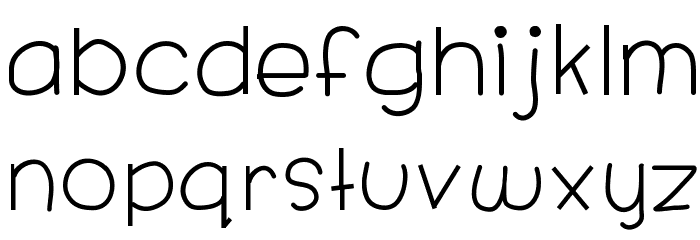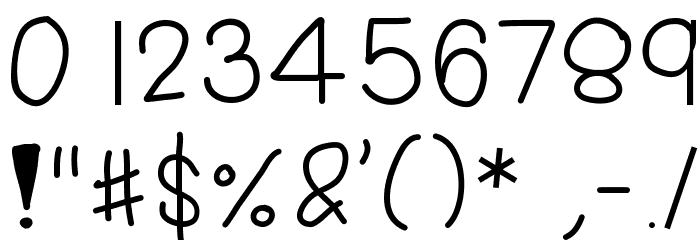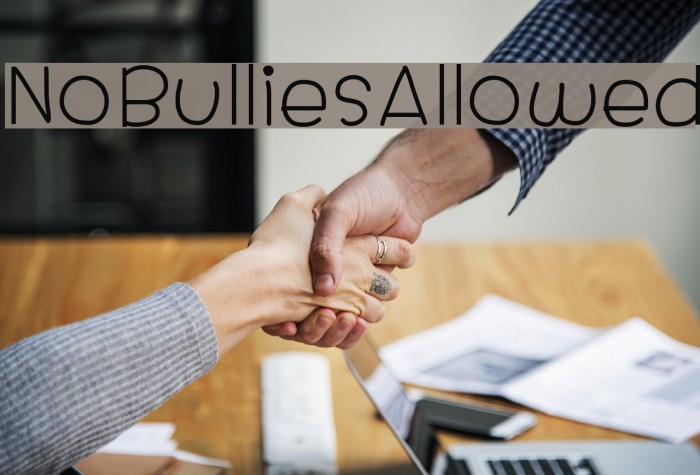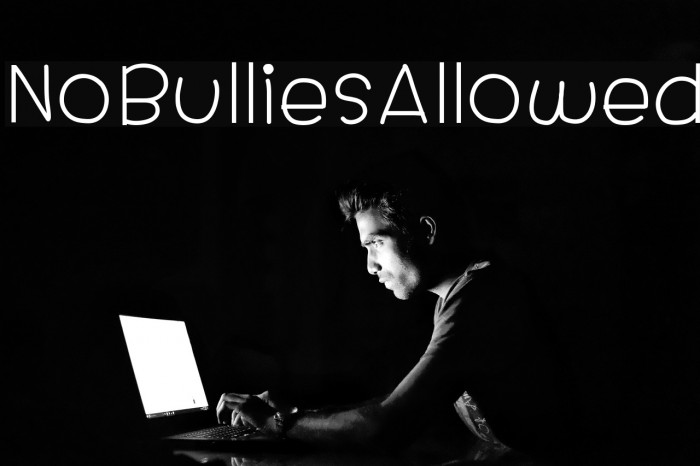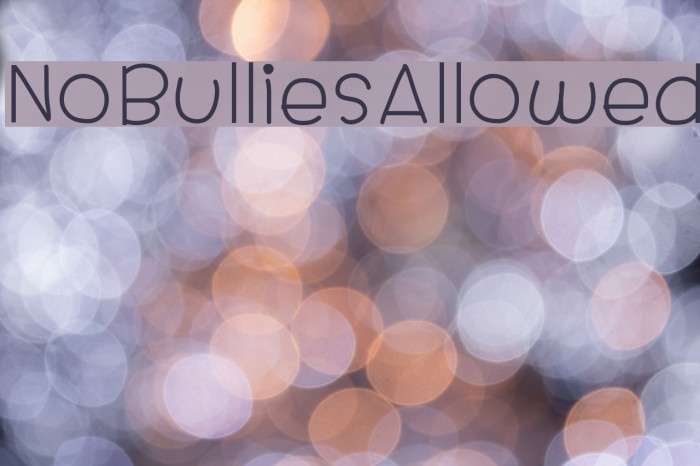
NoBulliesAllowed Font
This font features a clean and modern design with rounded edges and a friendly appearance. The characters are evenly spaced, contributing to its readability. The uppercase letters are slightly taller than the lowercase, maintaining a consistent line weight throughout. Numbers and special characters are designed with the same rounded style, ensuring a cohesive look. The font's simplicity and clarity make it suitable for various applications, from digital interfaces to printed materials.
A modern, rounded font with a friendly and clean appearance.
- Proposed Projects: Ideal for children's books, educational materials, websites, and apps aiming for a friendly and approachable look.